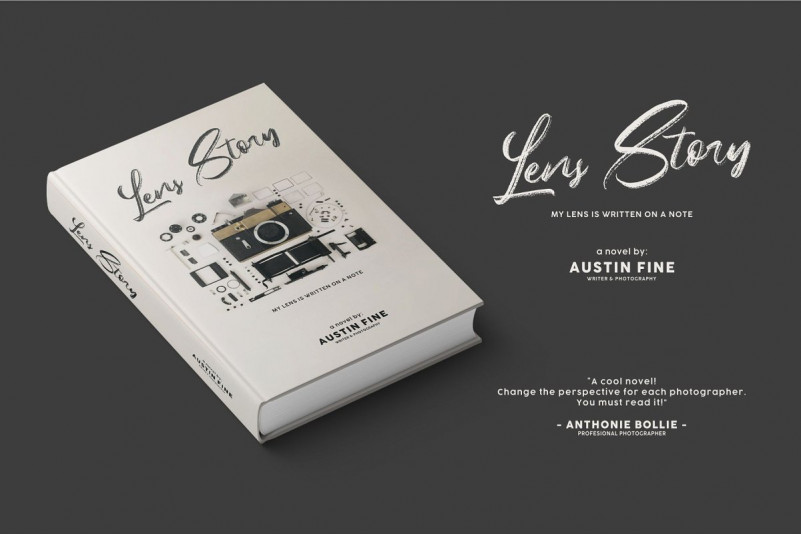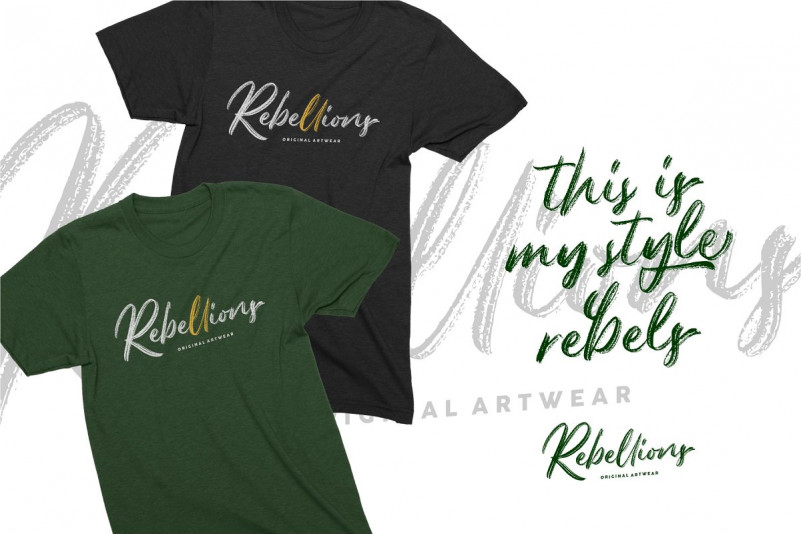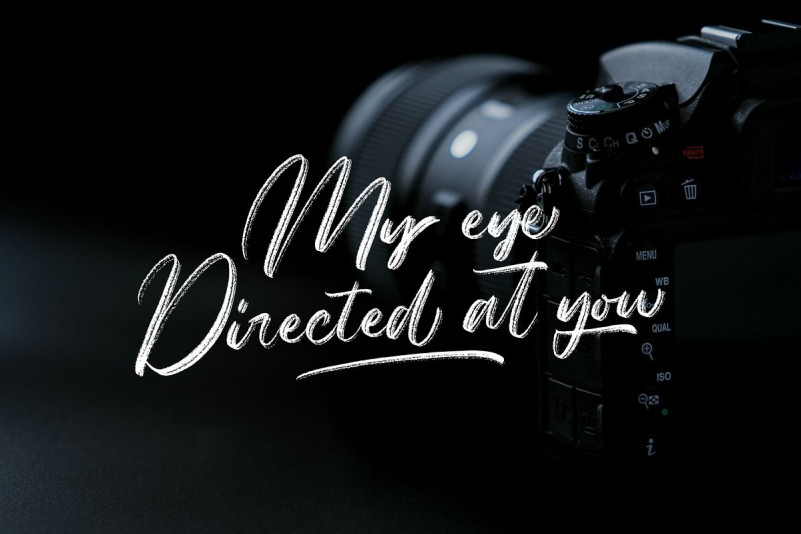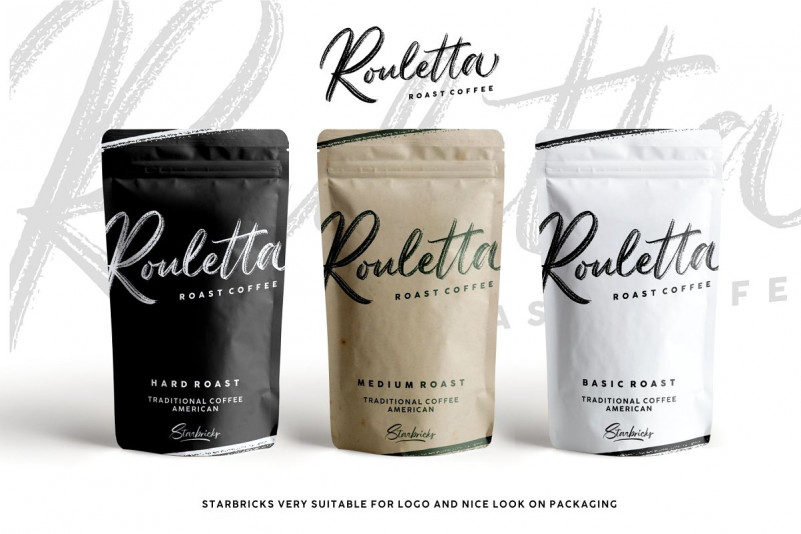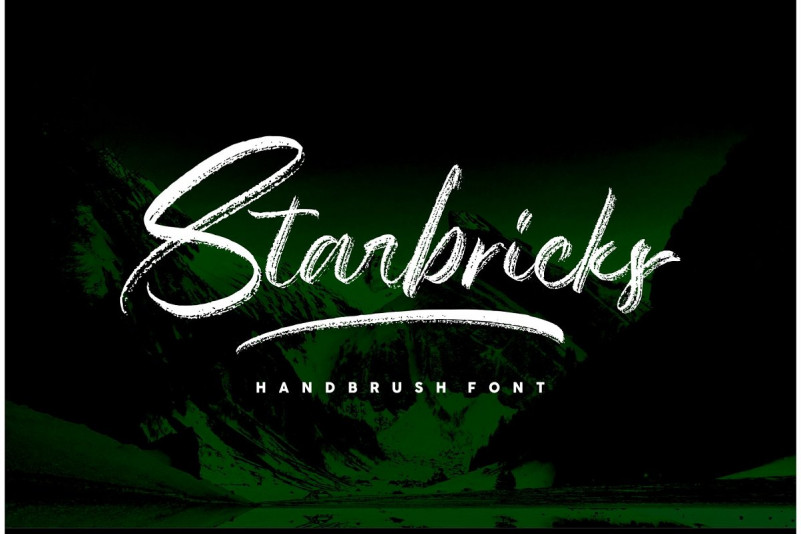
Starbricks Handbrush Font
Starbricks Handbrush Demo Font
This is handbrush script font with dry brush and signature style. Font is beautiful instrument for designers, blogers and everybody who loves handwritting calligraphy, for fans of puzzles and flowery flourish whorls and other people! Proudly presents latest product Starbricks Brush Font! It is designed and shared by Garisman Std. Starbricks Handbrush Font is made with natural handbrushes. With the unique Opentype in it and the ligature will add aesthetic value to your design product. Available in this file are Starbricks Fonts and also Swash which you can unite into an amazing design. You can even use the Opentype feature without the help of any special software, whether it’s in Adobe Illustrator, Corel Draw, or Photoshop.